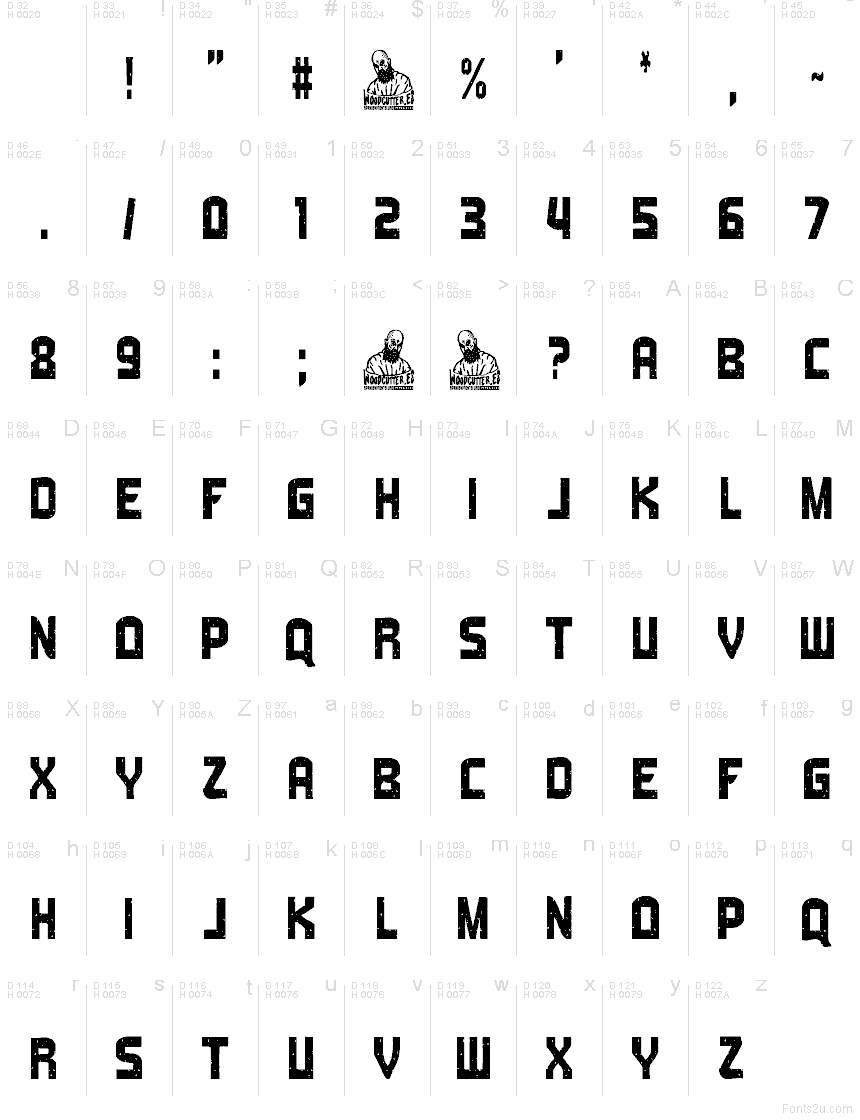
The Fast Enterprise
The Fast Enterprise font by Woodcutter Manero is a free decorative display typeface that looks like it’s been carved out of deep space. Tall, tightly stacked letters are punched through with tiny “star” pocks and noise, giving every word a gritty, cosmic texture. The result feels both mechanical and celestial at once—like old sci‑fi movie titles printed on worn film stock—making headlines feel charged and kinetic even when standing still.
Using The Fast Enterprise font, you can push posters, sci‑fi book covers, gaming titles, YouTube thumbnails, tech event graphics, futuristic logos, and band merch into bold, cinematic territory. The dense texture reads best at large sizes, so let it dominate the composition and pair it with a clean, light-weight sans serif for smaller supporting text. This free font thrives when you want rough, galactic energy without losing legibility.